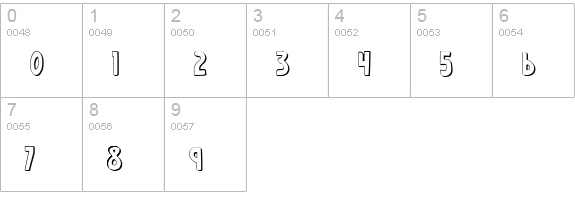
Introducing Earth's Mightiest 3D font, a powerful and dynamic typeface that exudes strength and sophistication. Inspired by the heroes of the Earth, this font is perfect for adding a bold and commanding touch to your designs. With its intricate 3D effect, Earth's Mightiest font is sure to make a lasting impression on any project. The best part? Earth's Mightiest 3D font is available for free download at FontsMarket.com. This means you can easily access this impressive font and elevate your designs without any cost. Whether you're working on a poster, logo, or branding project, Earth's Mightiest font will help you stand out and make a statement. Don't miss out on the opportunity to enhance your designs with the Earth's Mightiest 3D font - download it for free today at FontsMarket.com and unleash the power of this extraordinary typeface!